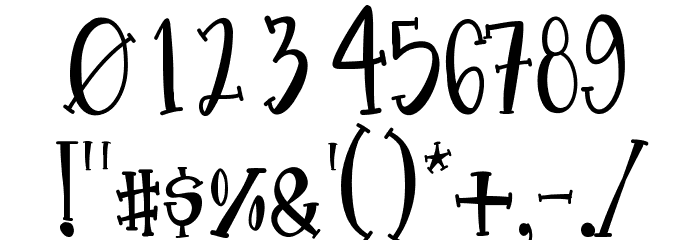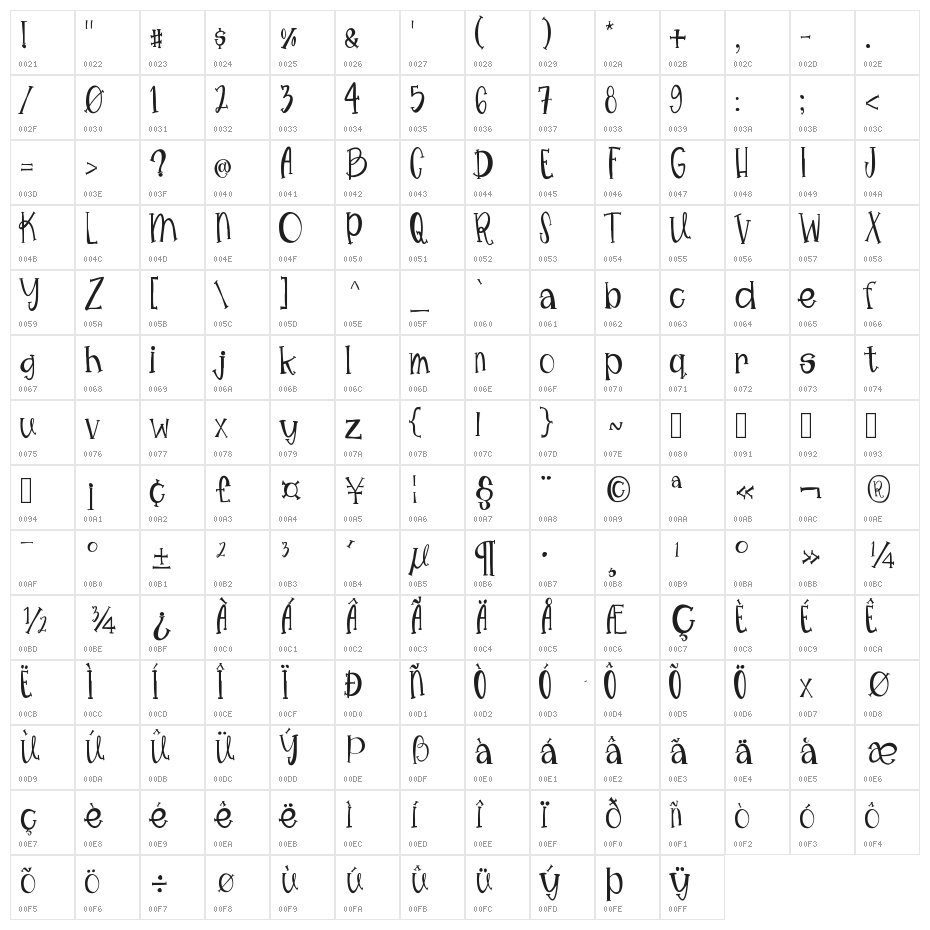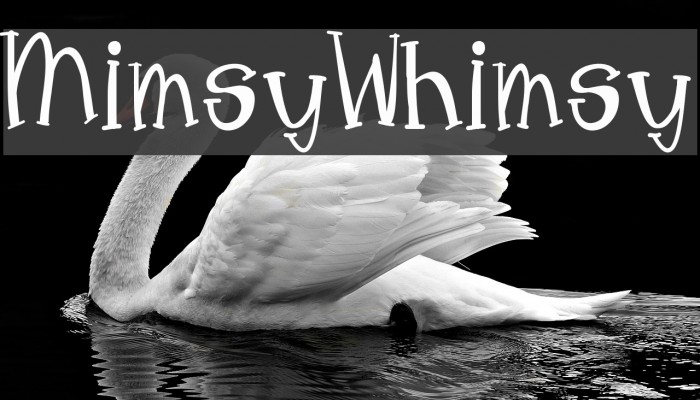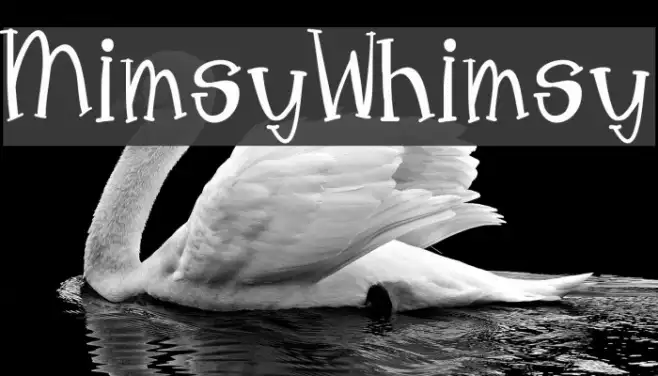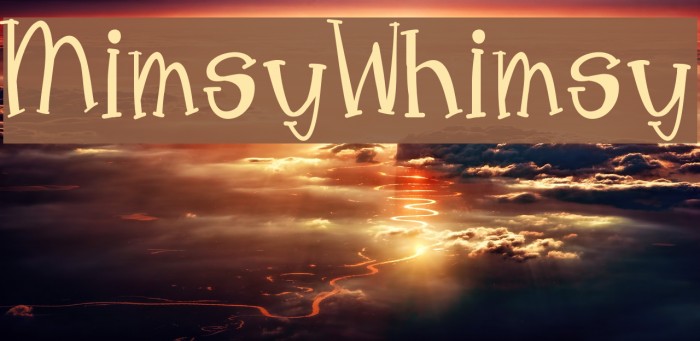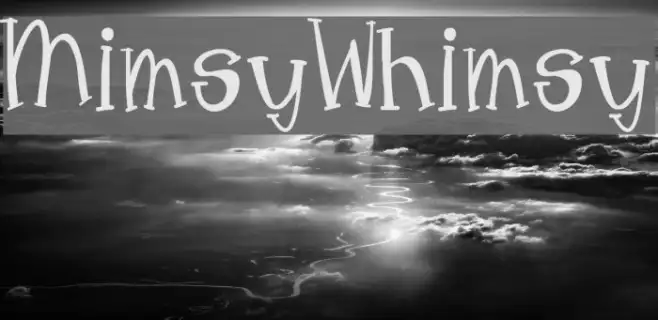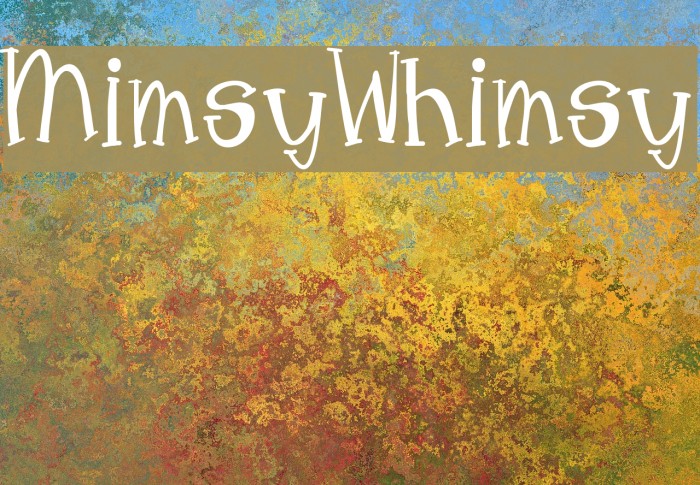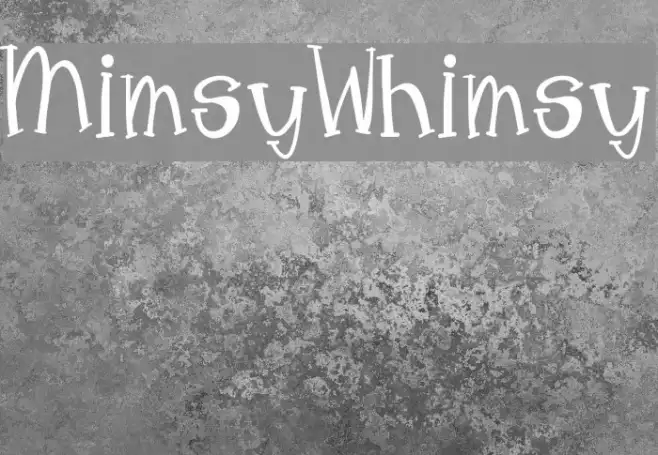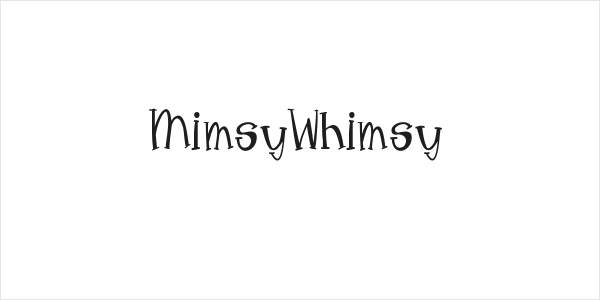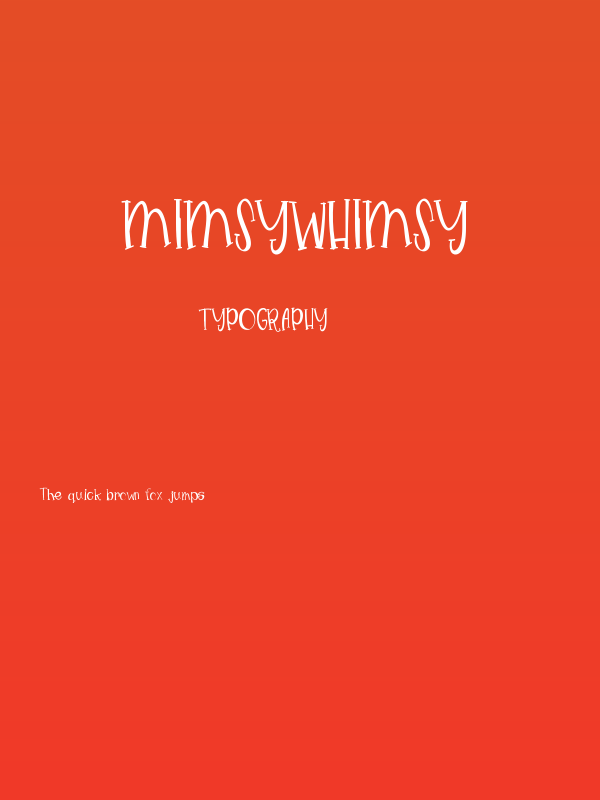
MimsyWhimsy Font
MimsyWhimsy Description
This whimsical and playful font features a unique, hand-drawn style with quirky, uneven lines and a slightly irregular baseline. The characters have a charming, childlike quality, with exaggerated curves and loops that give it a lively and animated appearance. The uppercase letters are tall and narrow, while the lowercase letters are more rounded and open, creating a delightful contrast. The numbers and special characters maintain the same playful aesthetic, making this font perfect for adding a touch of fun and creativity to any project.